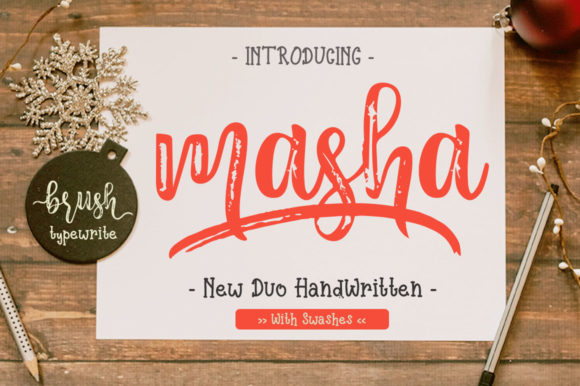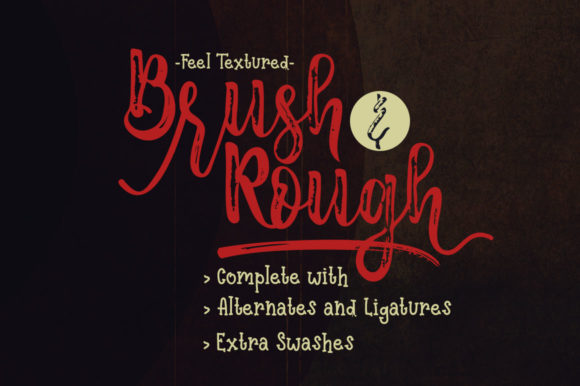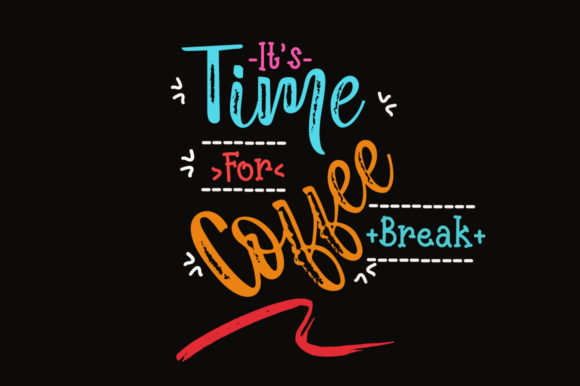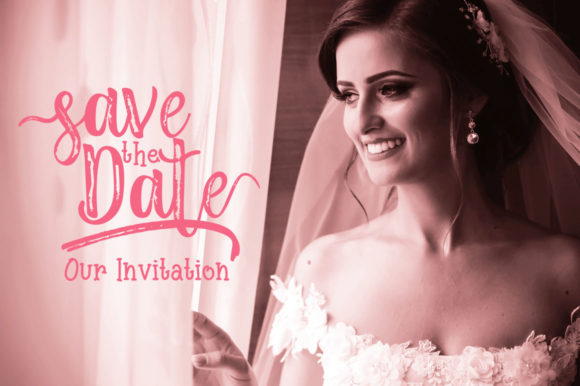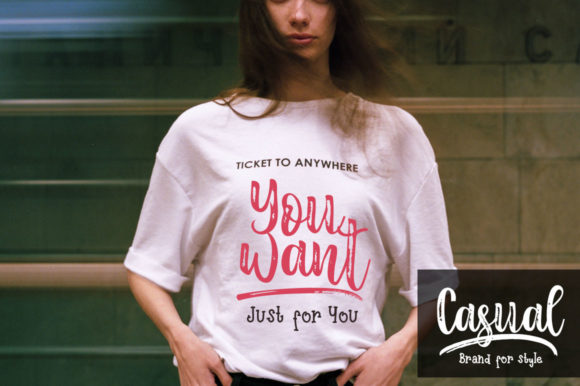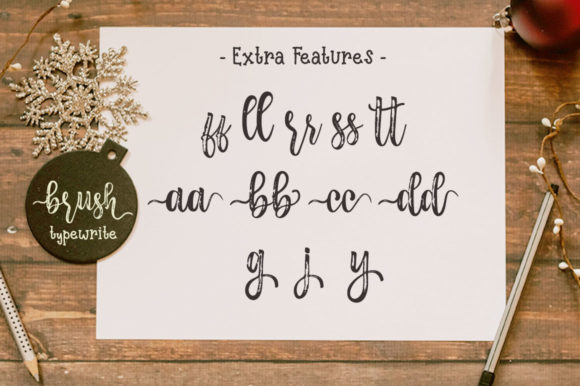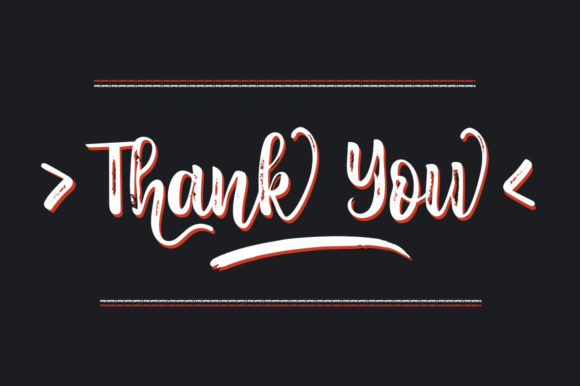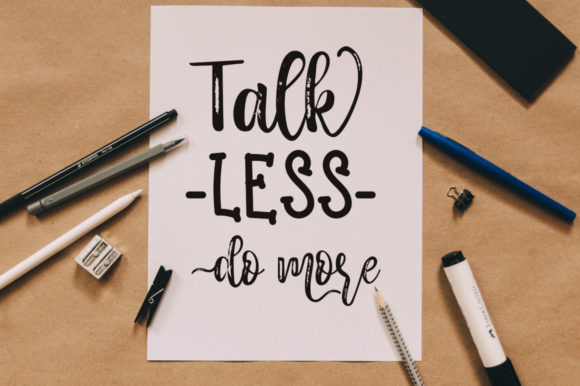
Masha Duo Font
About Masha Duo Font
Masha is a stunning and beautiful font duo with a bold charm. Use it for any design idea that needs a fun, personal twist.